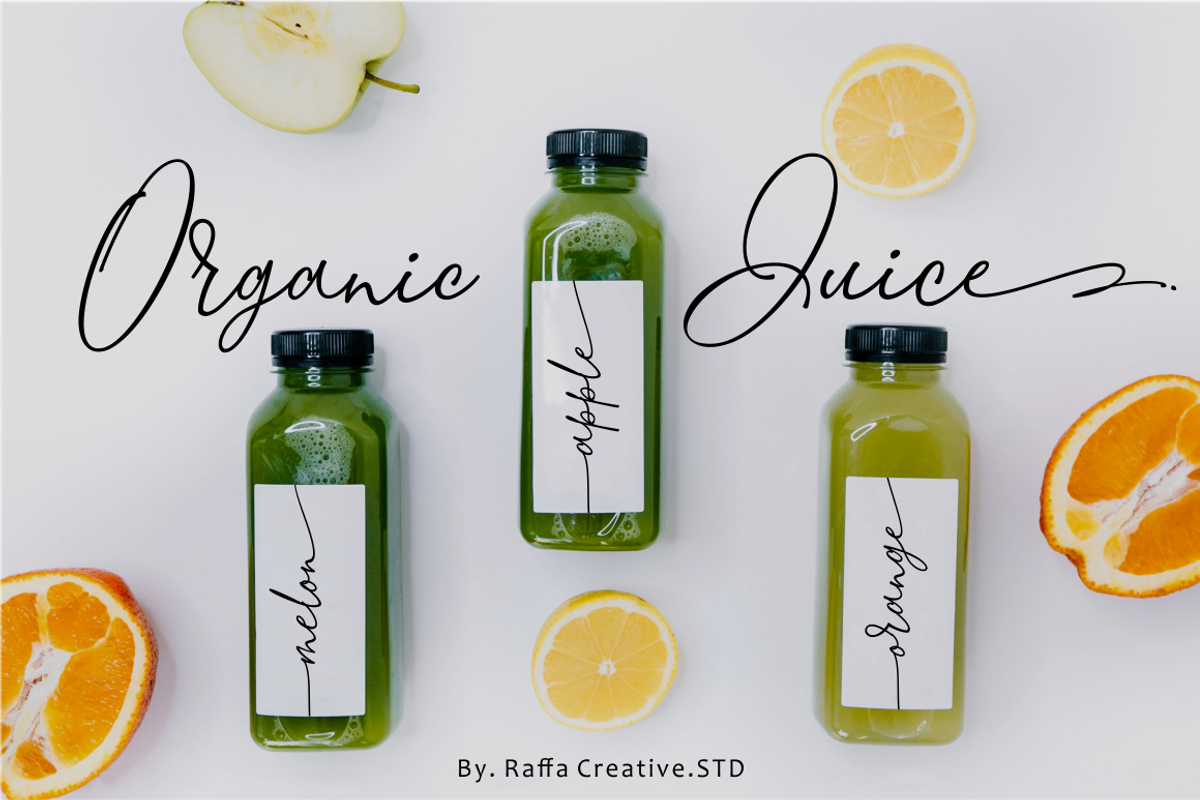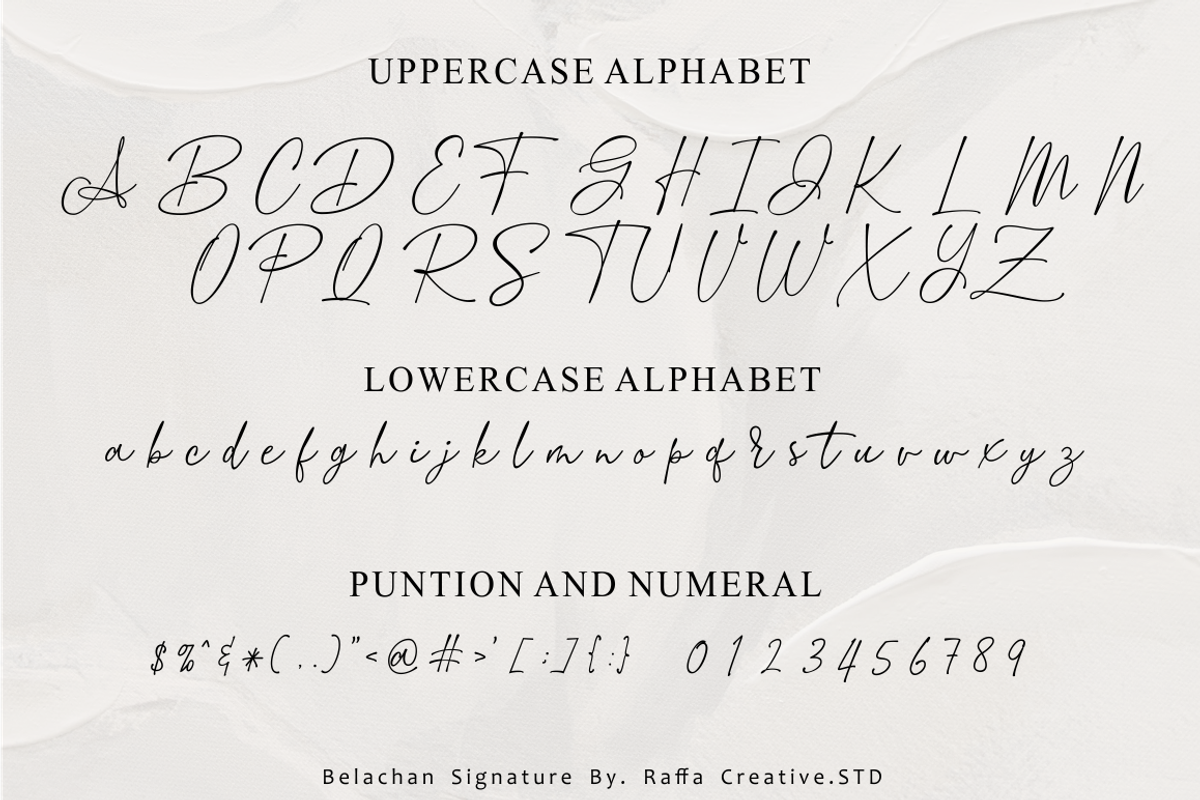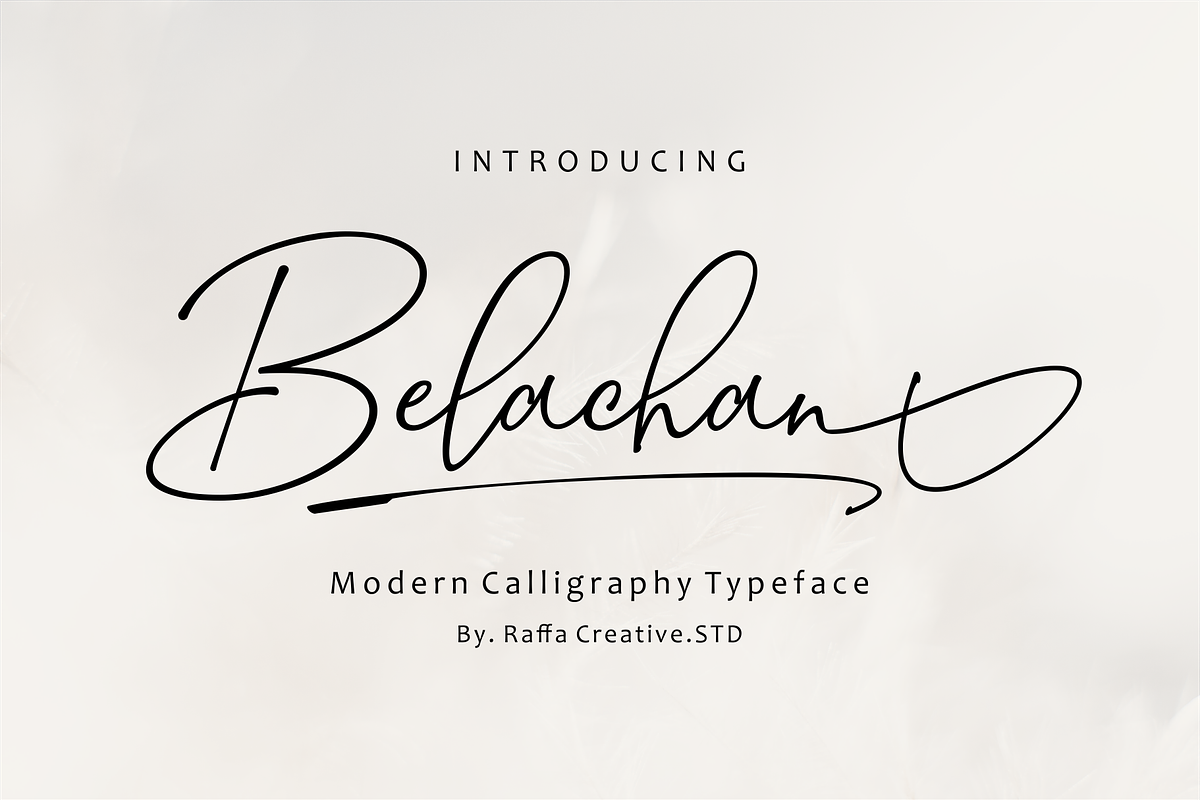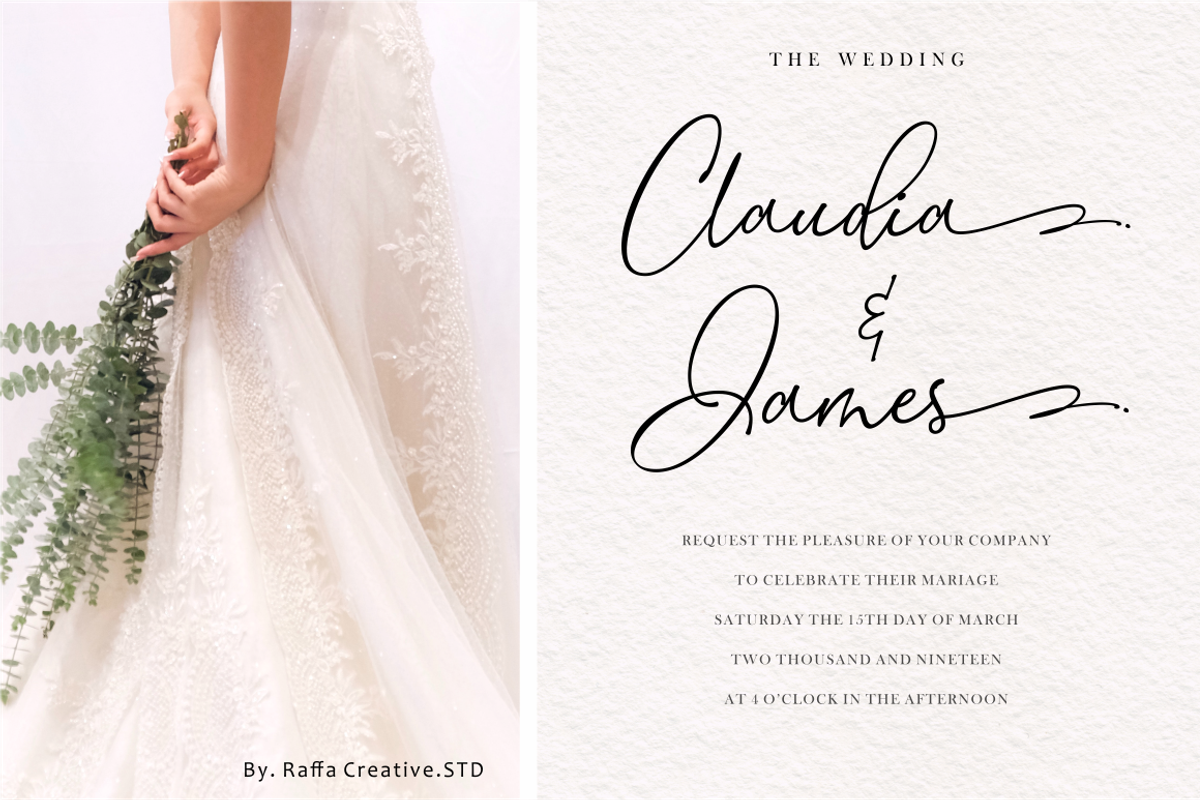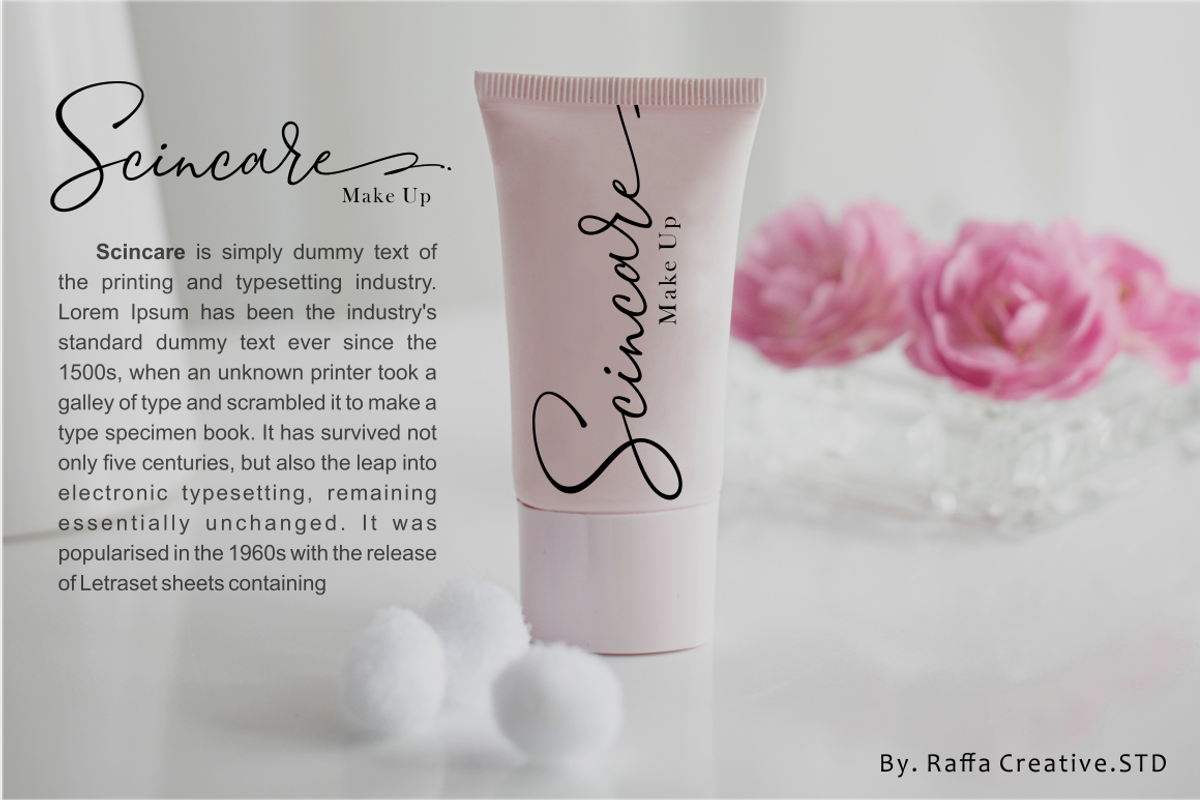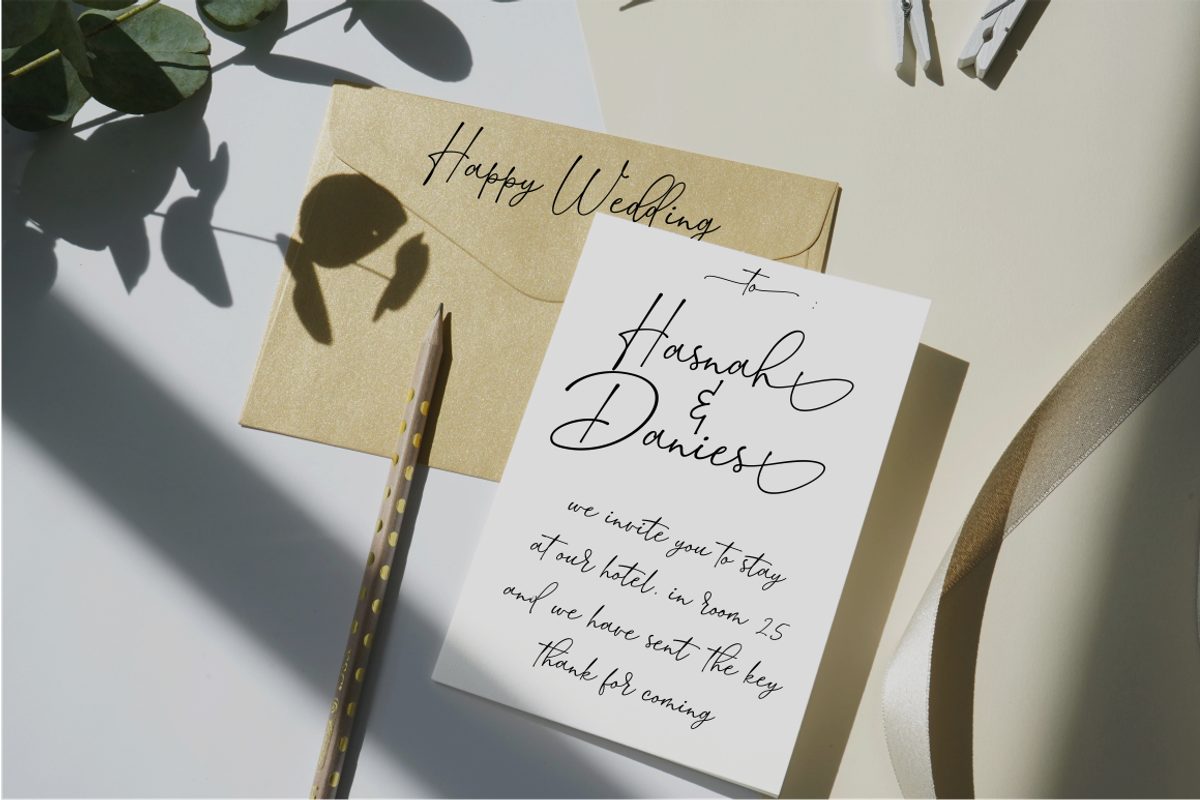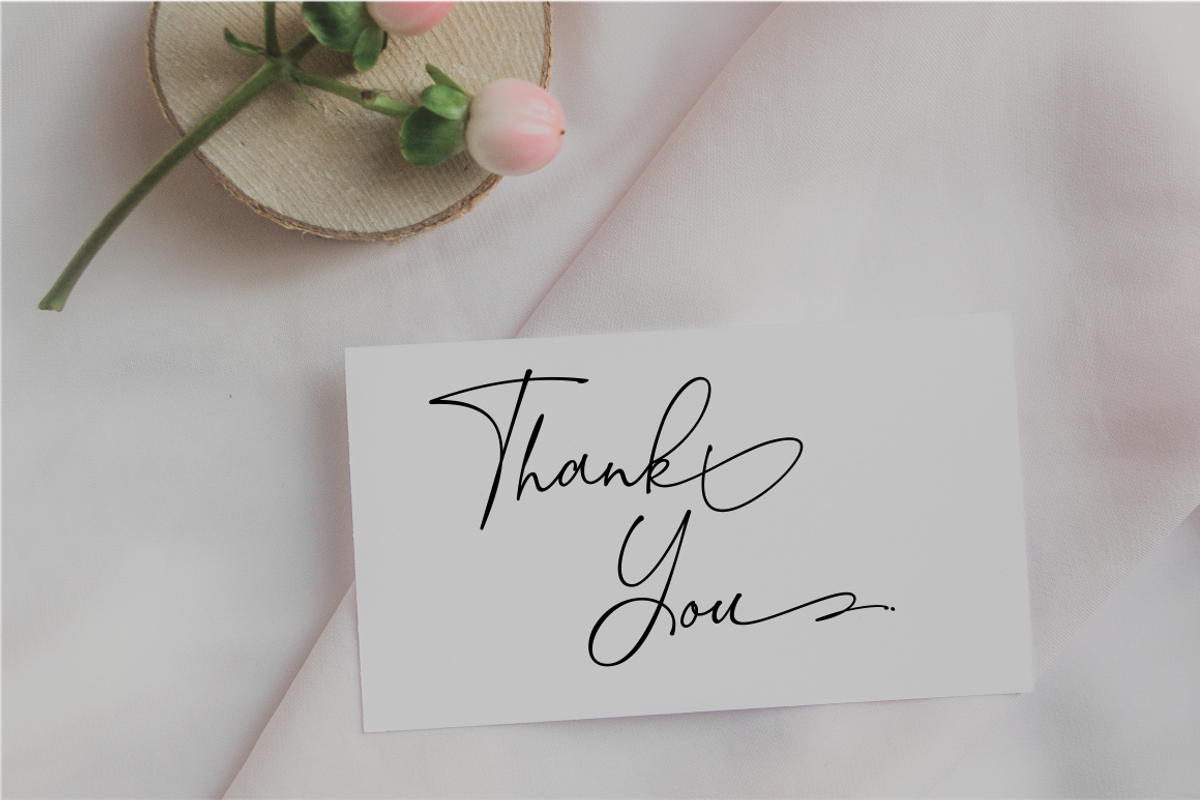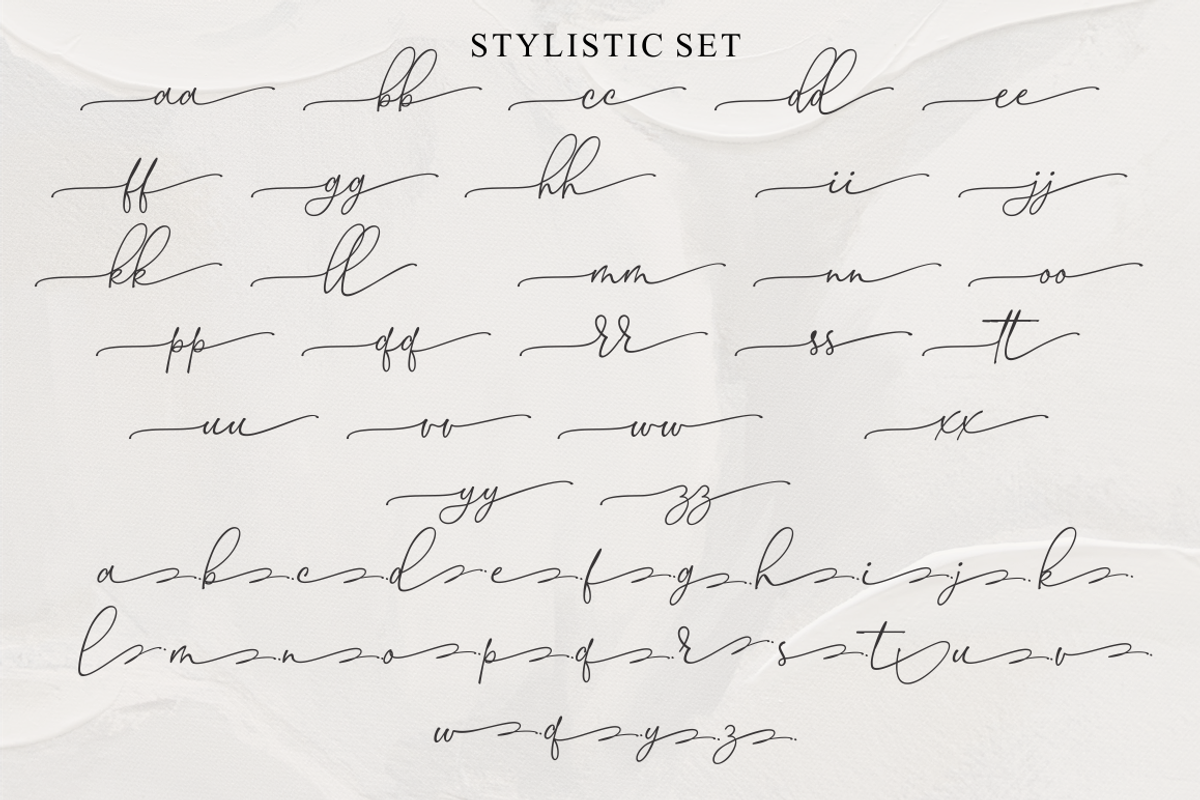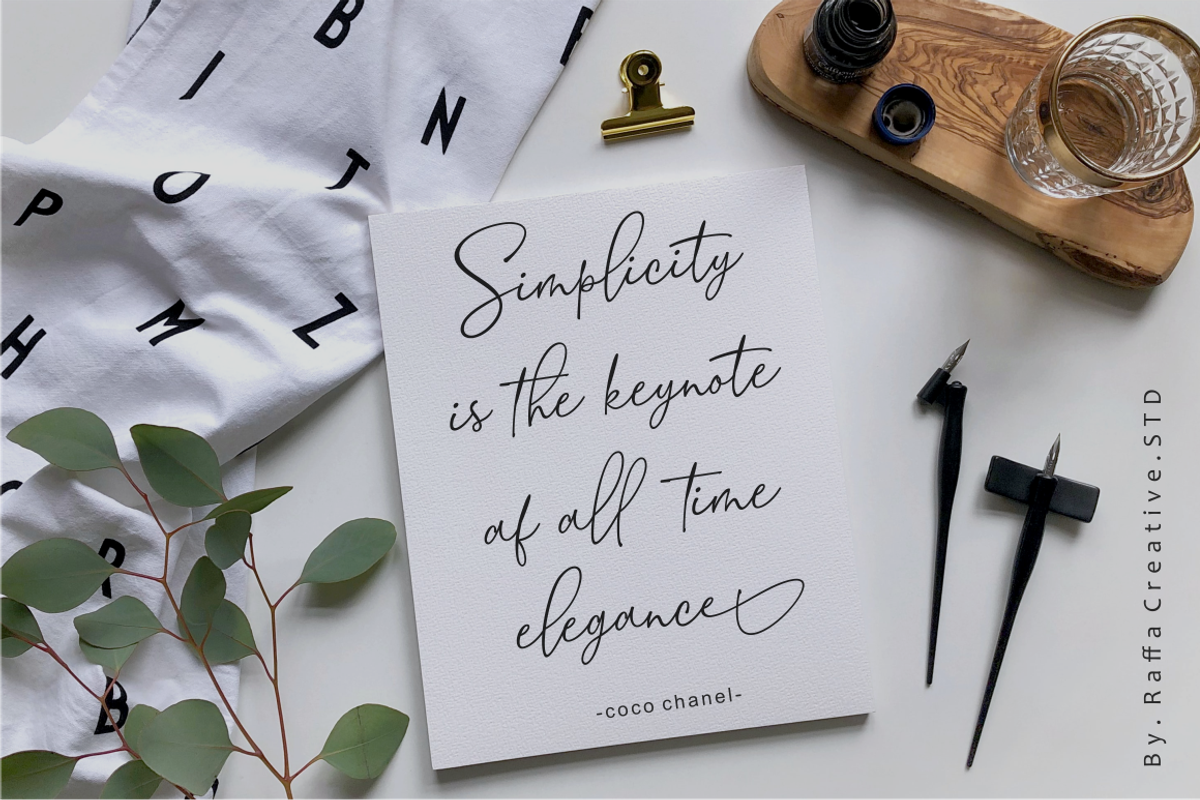
Belachan Signature
Belachan is an organic handwritten font that is suitable for branding, signature, wedding invitation, promotion, product packaging, and other needs. This font is modern, simple, but still authentic. You will get full set of lowercase and uppercase letters, numerals and punctuation, multilingual symbols, lowercase beginning and ending swashes, ligatures and extra swashes.